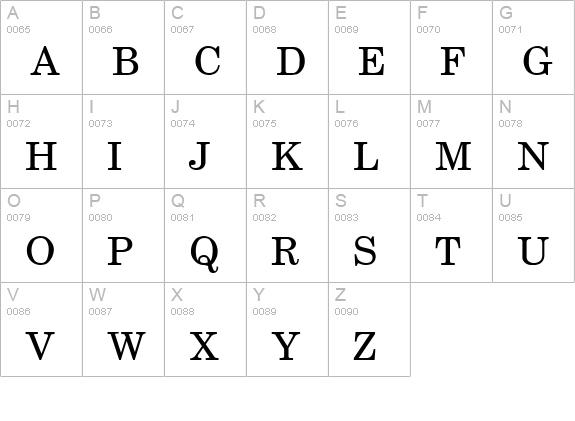
Schoolbook Regular Font Details
Schoolbook Regular is the standard, neutral variant in the Schoolbook typeface family \xE2\x80\x94 well suited to general body text, paragraphs, and standard typographic work.
Schoolbook Regular is a classic and timeless font that exudes elegance and sophistication. With its clean and balanced letterforms, this font is perfect for any project that requires a touch of professionalism and refinement. Whether you are creating print materials, designing a logo, or working on a website, Schoolbook Regular will elevate your work to the next level. Its versatility allows it to be used in a variety of contexts, from formal presentations to creative designs. One of the best features of Schoolbook Regular is that it is available for free! You can easily download this font from FontsMarket.com and start using it in your projects right away. This means that you can enjoy high-quality typography without having to spend a penny. The designers behind Schoolbook Regular have taken great care to ensure that every detail is perfect. The proportions, curves, and spacing of each letter have been meticulously crafted, resulting in a font that is both visually pleasing and easy to read. With its timeless appeal and free availability, Schoolbook Regular is a must-have font for any designer or typographer. Whether you are a professional or a hobbyist, this font will add a touch of sophistication to your work. So why wait? Download Schoolbook Regular for free from FontsMarket.com and unleash your creativity today.